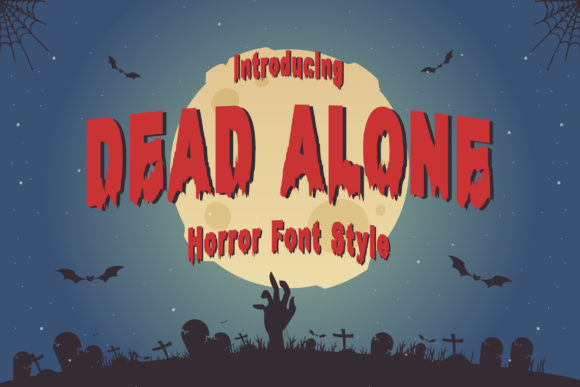
Step into the macabre realm of Dead Alone, a captivating display font that will send shivers down your spine. This awe-inspiring font exudes an eerie charm, perfectly suited for conjuring spine-chilling tales and evoking goosebumps.
Dead Alone's meticulously crafted characters dance with an otherworldly elegance, creating an aura of mystery and suspense. Its sharp edges and haunting curves evoke a sense of unease, drawing viewers into a world of darkness and intrigue. Unleash your creativity and let Dead Alone take your designs to terrifying new heights.
Whether you're crafting chilling Halloween invitations, designing hauntingly beautiful horror movie posters, or creating T-shirts that ooze spooky charm, Dead Alone is your ultimate weapon. Its versatility extends beyond the realm of horror, lending an air of sophistication to logos, branding, and other creative endeavors.
Experience the thrill of crafting designs that captivate and mesmerize with Dead Alone. Its unique and unforgettable style will leave a lasting impression on your audience, ensuring your message resonates with unforgettable potency.